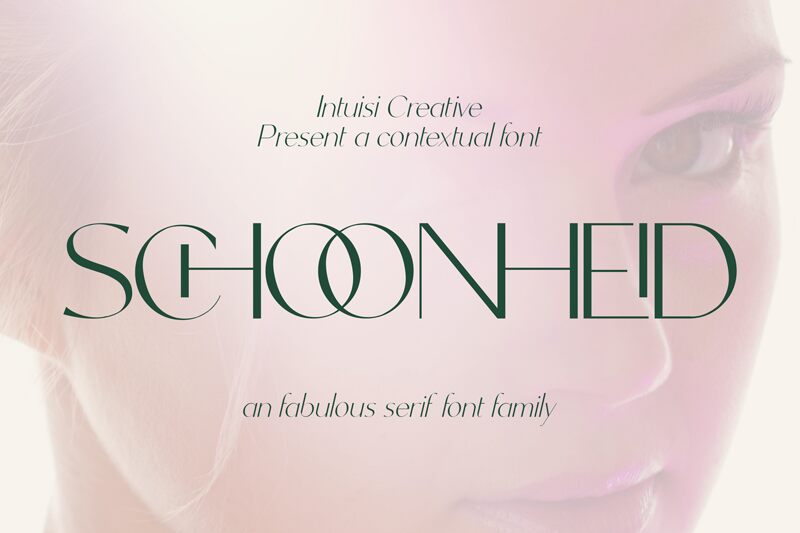
Schoonheid font family by Intuisi Creative is a free font family with a minimalist touch. The 3 font styles within the family exhibit geometric letter shapes along with clean curves for an overall artistic and professional feel. The font is elegant and sophisticated, a great choice by all means whether you’re designing creatively for your brand or commercial project.
Schoonheid font is suitable to include in designs of branding/visual identity, packaging, logo designs, stationery, posters, magazine covers, and app interface designs. The font fits within contemporary themes but can also give that modern look to vintage and traditionally themed designs. Creativity is key!